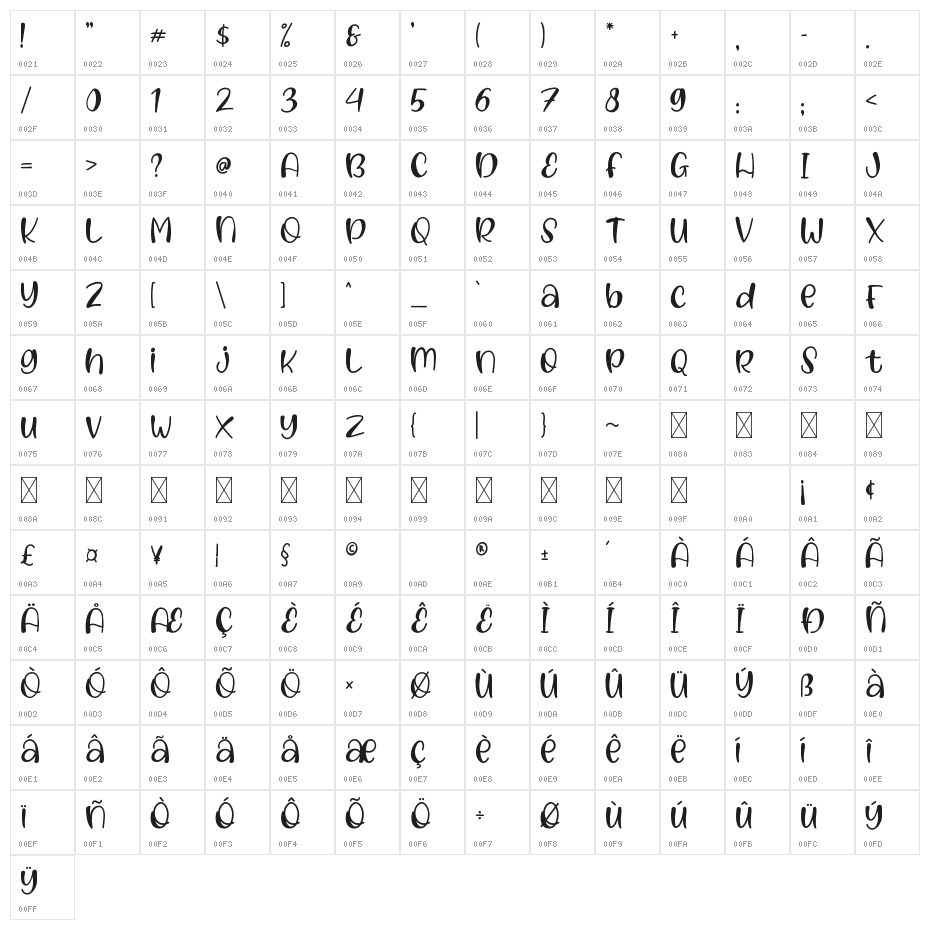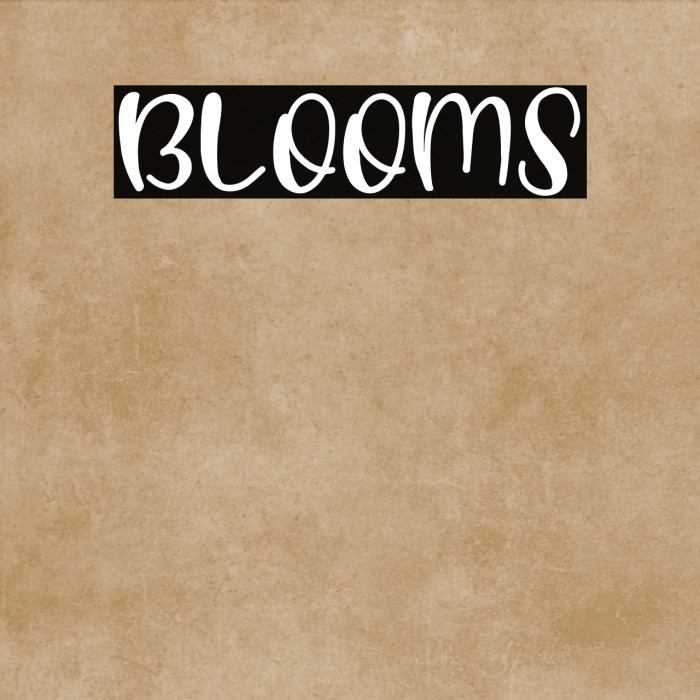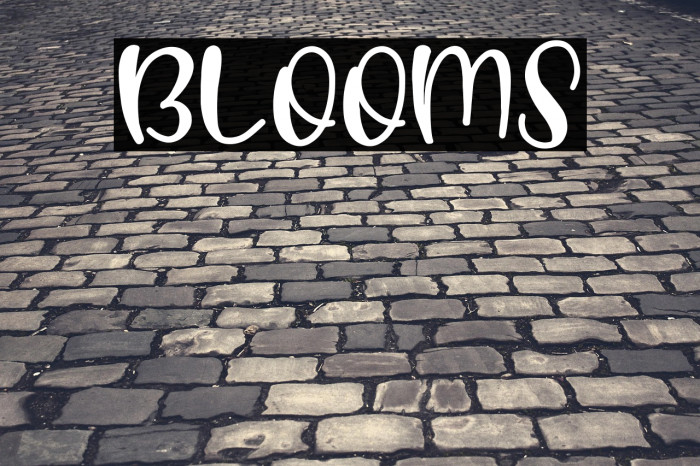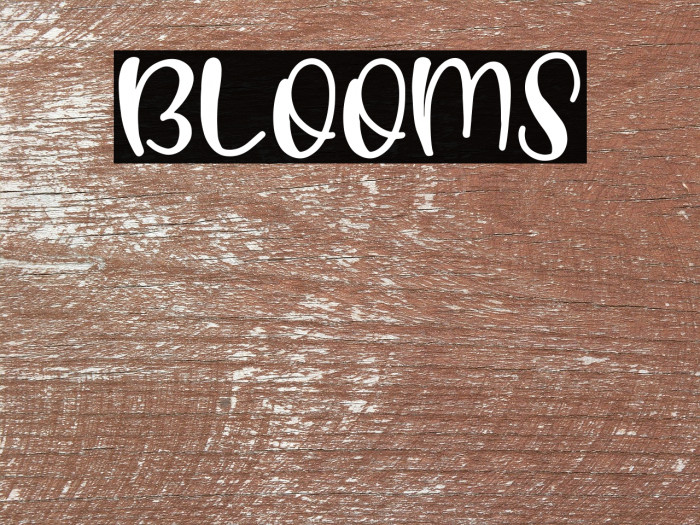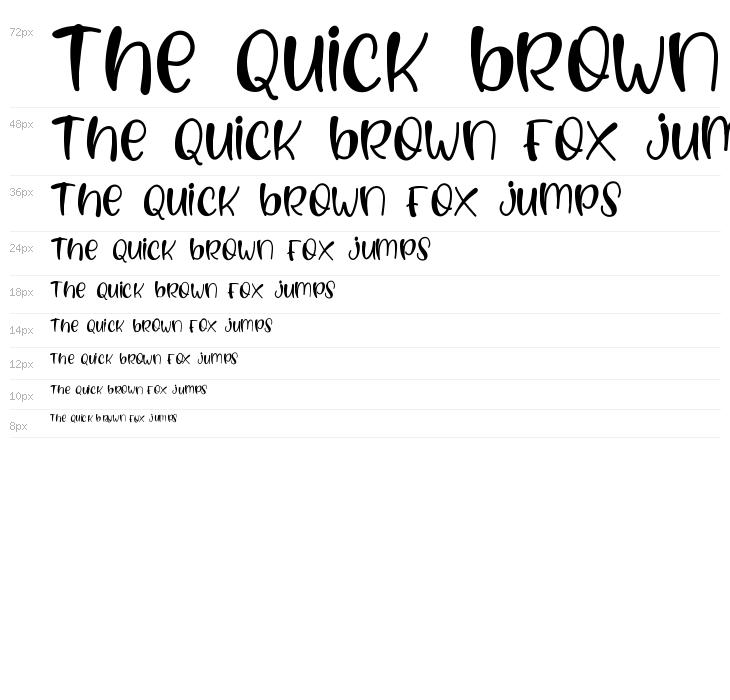
Blooms Font
Blooms Description
This font features a playful and whimsical script style, characterized by its flowing, cursive letterforms. The strokes are bold and rounded, giving it a friendly and approachable appearance. The uppercase and lowercase letters maintain a consistent style, with smooth curves and a slight slant that adds to its dynamic feel. The numbers and special characters are equally expressive, maintaining the same boldness and fluidity. This font is ideal for projects that require a touch of elegance and creativity, making it suitable for invitations, greeting cards, and branding materials.
Use CaseHeadlines, Logos, Invitations
Proposed ProjectsIdeal for invitations, greeting cards, branding, and creative projects.